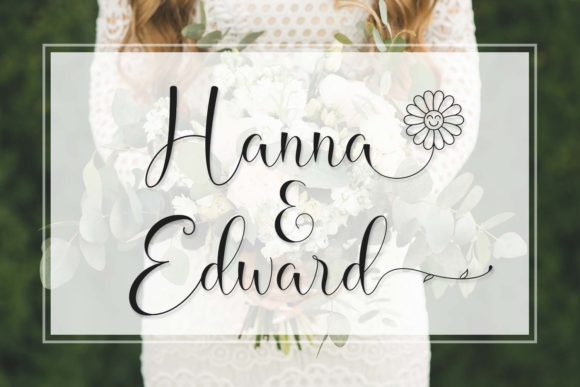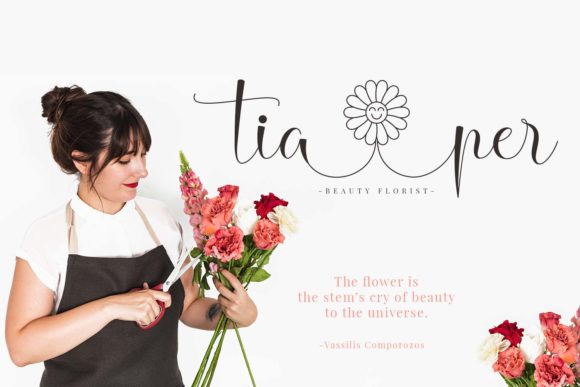
Hello Daisy Font
db-ku.com - Script & Handwritten -- Hello Daisy is an incredibly distinct, delicate and timeless handwritten font. It looks stunning on wedding invitations, thank you cards, quotes, greeting cards, logos, business cards and every other design which needs a handwritten touch. This font is PUA encoded which means you can access all of the glyphs and swashes with ease! It features a varying baseline, smooth lines, gorgeous glyphs and stunning alternates.